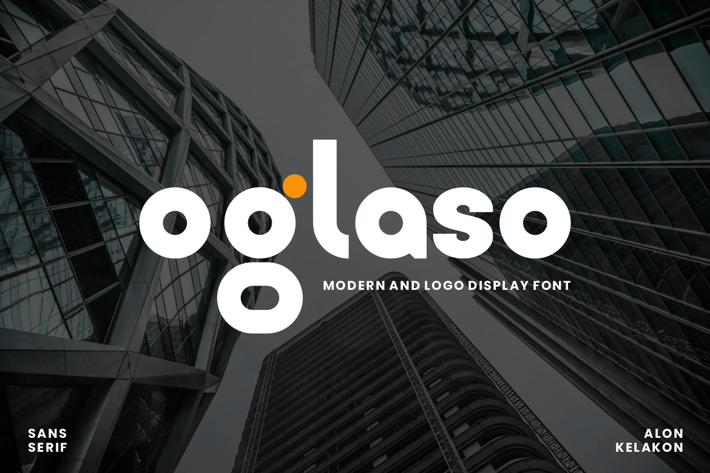
Oglaso - Modern Display & Logo Font
Oglaso - Modern Display & Logo Font Font is unique . Ready to use for your design like labeling, movie sceen, poster, movie title, gigs, album covers, logos, and much more.